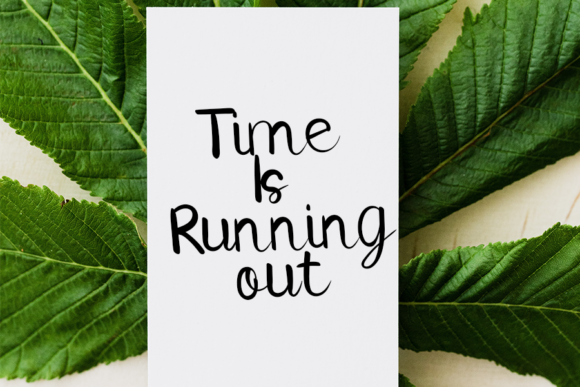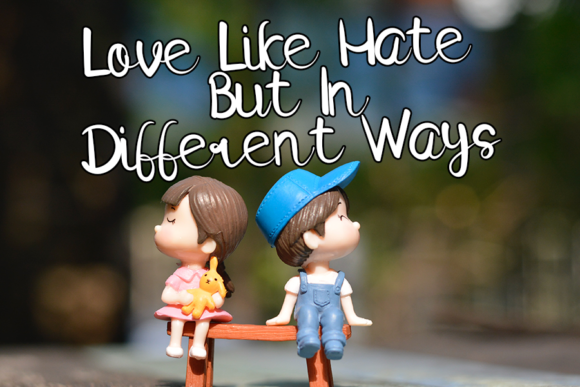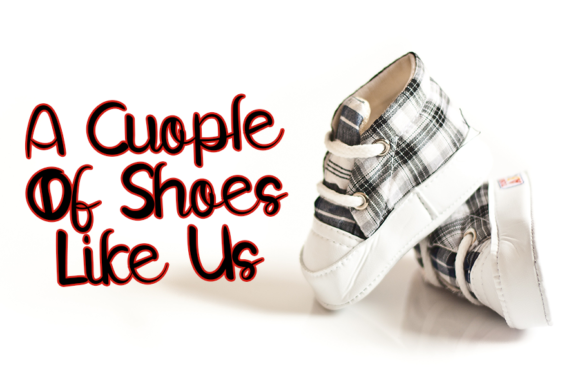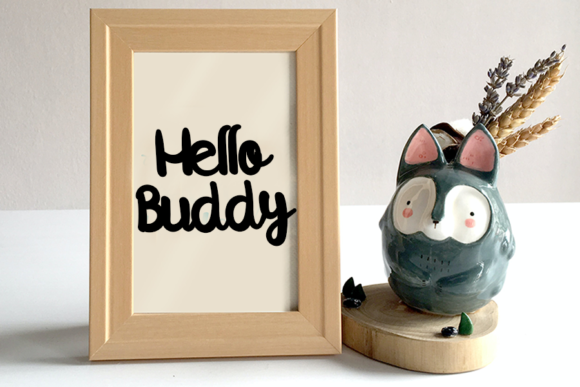
Introduction to Mister Ngabs Font
Have you ever stared at a blank canvas, feeling the weight of a creative project’s expectations? I know I have. It’s in those moments of uncertainty that we yearn for a design resource that can breathe life into our ideas. Enter the enchanting Mister Ngabs Font, a delicate script font that embodies the essence of adaptability and charm.
With its versatility and high-quality aesthetic, Mister Ngabs Font has become a valuable addition to many designers’ arsenals. Whether you’re working on a project that requires a subtle touch or a bold statement, this font’s refreshing look is sure to elevate your design to new heights. And the best part? You can download it for free, allowing you to experiment with its transparent background and limitless possibilities.
As a design enthusiast, I can attest to the Mister Ngabs Font’s ability to add a touch of elegance to even the most mundane projects. Its free download feature makes it an accessible resource for creatives of all levels, ensuring that everyone can experience the joy of working with this beautiful font.
Key Features of Mister Ngabs Font
- Unique, hand-drawn design suitable for creative projects and artistic expressions.
- High-quality font with transparent background, ideal for use on various design elements.
- Perfect for use in digital art, graphics, and illustrations, with a resolution of 300 DPI for crisp and clear display.
- Designed to be versatile and adaptable, suitable for a wide range of creative projects and design applications.
- Part of a larger collection of unique fonts, offering endless possibilities for artistic expression and design innovation.
Honest Review: Mister Ngabs Font
I recently had the chance to work with the Mister Ngabs Font, and I must say it’s a unique addition to my design resources. The font is perfect for a creative project that requires a touch of elegance and sophistication.
- High quality: The font is crisp and clean, making it perfect for printing or digital use.
- Transparent background: The font’s transparent background allows for easy customization and versatility.
- Unique style: The Mister Ngabs Font has a distinct and eye-catching style that sets it apart from other fonts.
- Limited character set: The font only includes a limited set of characters, which may not be suitable for complex texts.
- Not ideal for body text: The font is better suited for headings and titles, rather than body text.
Overall, I’m impressed with the Mister Ngabs Font, and I would recommend it to designers looking for a high-quality, unique font for their creative project.
Mister Ngabs Font is suitable for various creative projects, including logos, posters, and brochures. Its transparent background feature makes it easy to layer with other design elements.
To get the most out of Mister Ngabs Font, use it in conjunction with other high-quality design resources and experiment with different font sizes and colors.
Comparison to Mister Ngabs Font: While Alex Brush Font is more elegant and refined, Mister Ngabs Font is more playful and quirky. Alex Brush Font is ideal for formal designs, whereas Mister Ngabs Font is better suited for casual, creative projects.